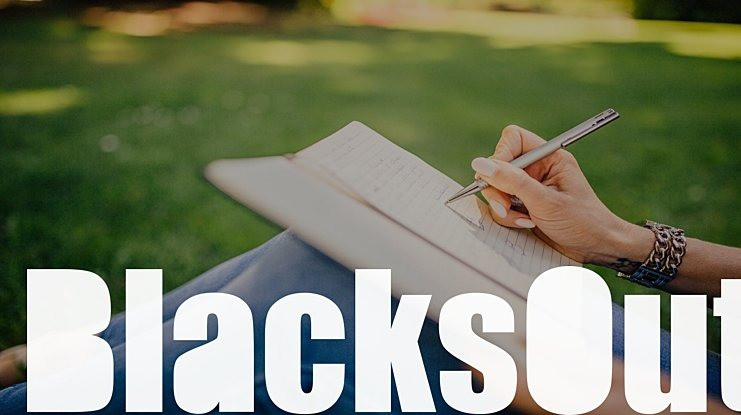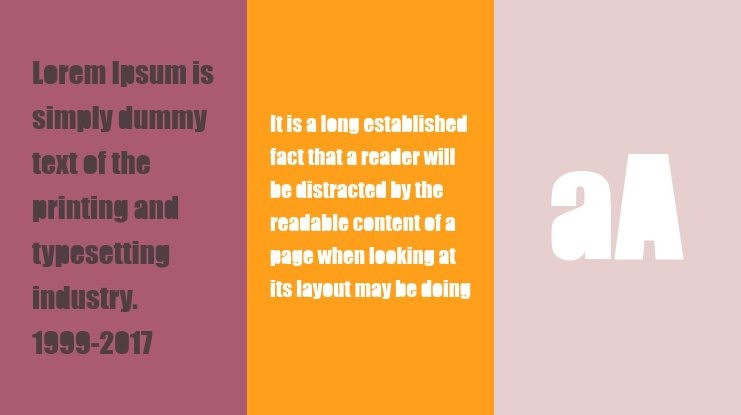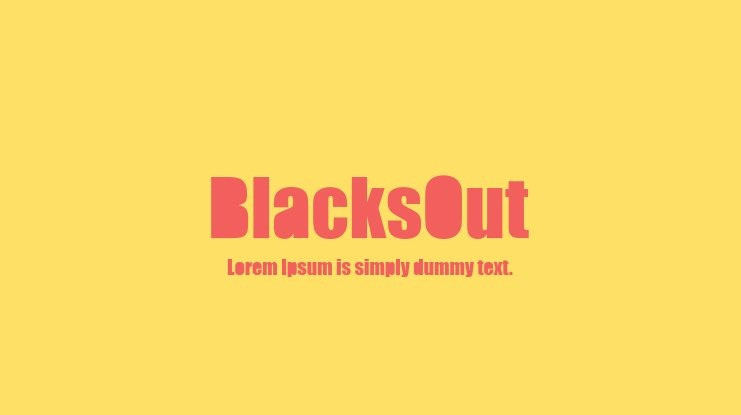
BlacksOut Display Font, It would be a perfect choice to design posters, affiches, logos, t-shirt and magazine prints, eye-pleasing typographic designs and more.